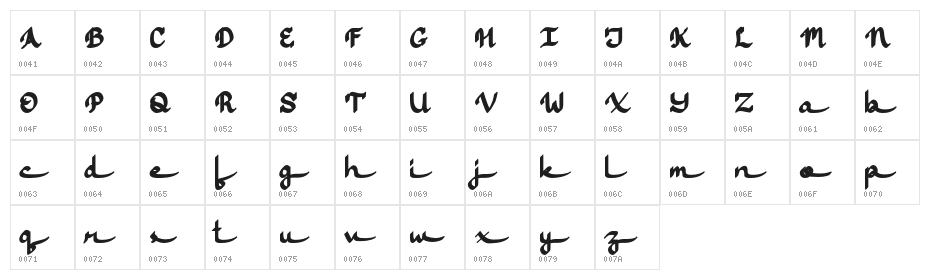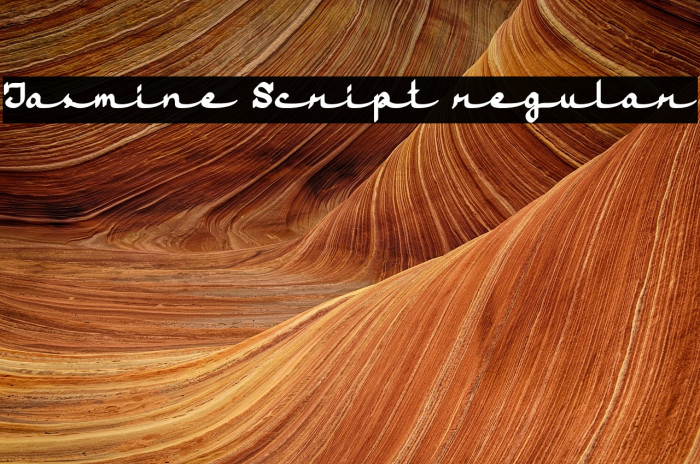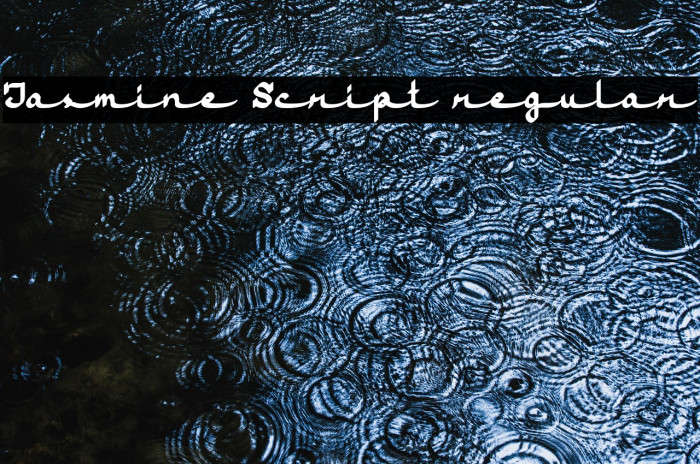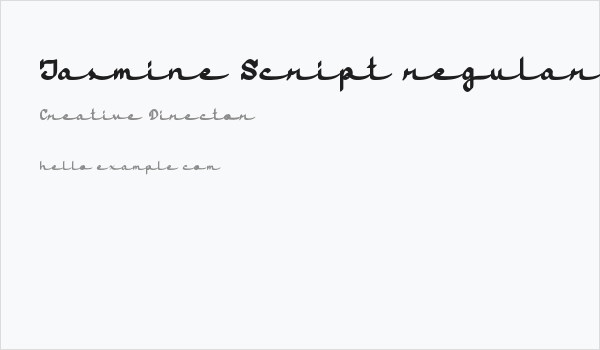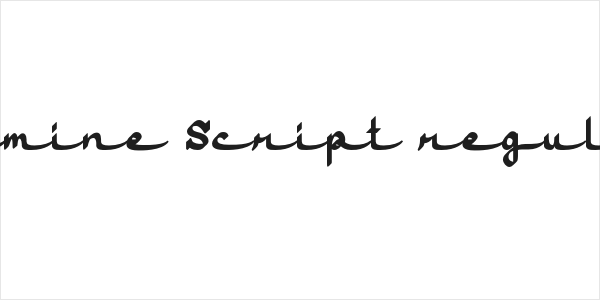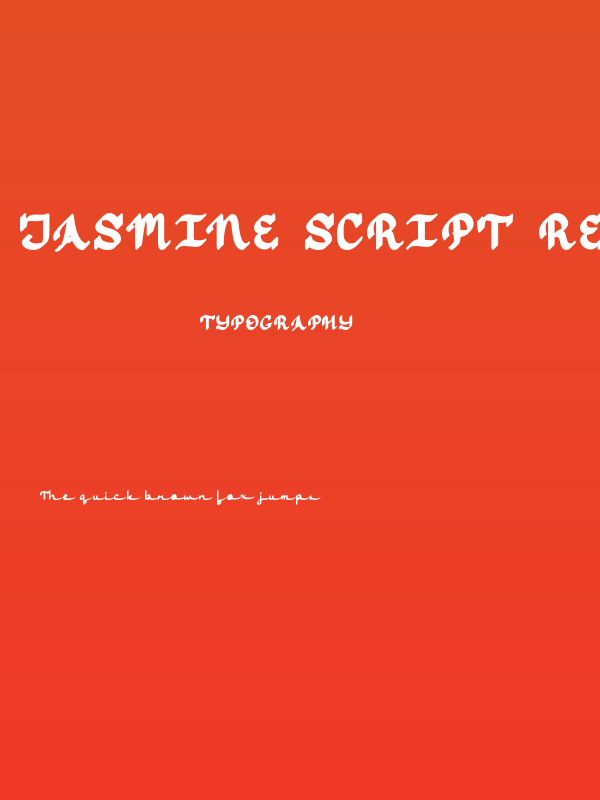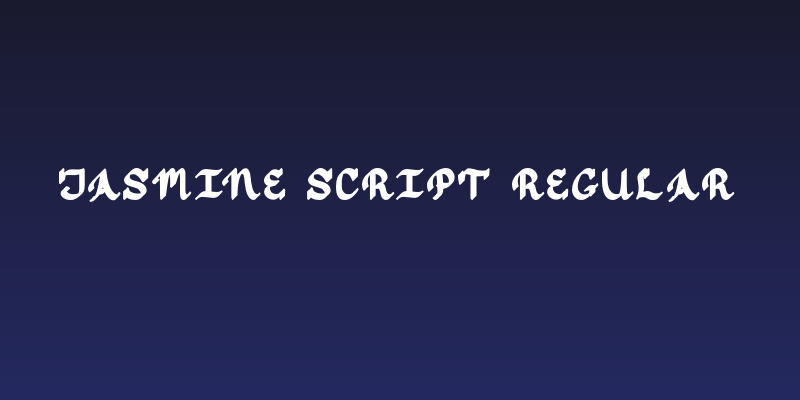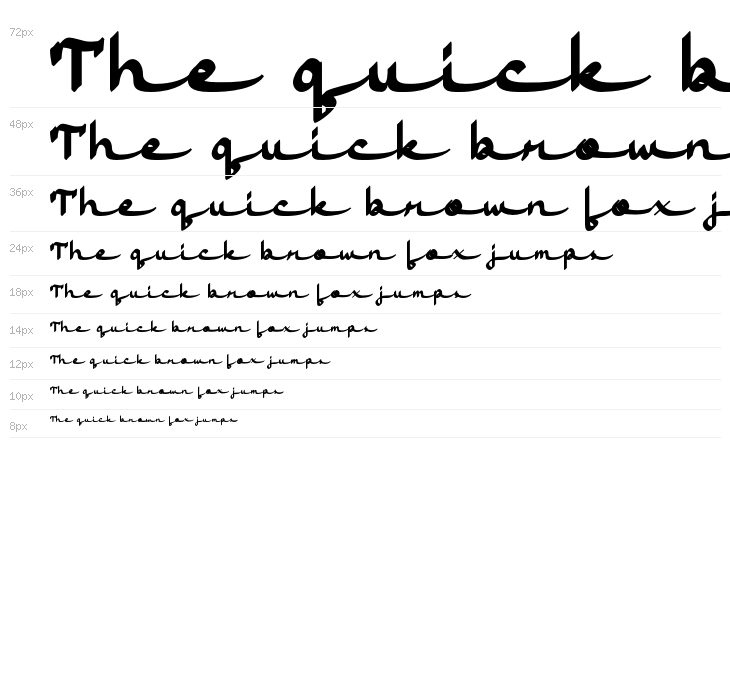
Jasmine Script regular Font
Jasmine Script regular Description
This font features an elegant and flowing script style, characterized by its smooth, cursive strokes and a sense of fluidity. The uppercase letters are bold and slightly ornate, with a touch of calligraphic flair, while the lowercase letters maintain a consistent, connected flow, enhancing readability. The overall design exudes a sense of sophistication and grace, making it suitable for formal and decorative applications. The font's unique style is achieved through its balanced contrast between thick and thin strokes, providing a dynamic yet harmonious appearance.
ContrastMedium
Overall StyleDecorative
Use CaseHeadlines, Logos, Invitations
Proposed ProjectsIdeal for wedding invitations, elegant branding, greeting cards, and decorative headings.